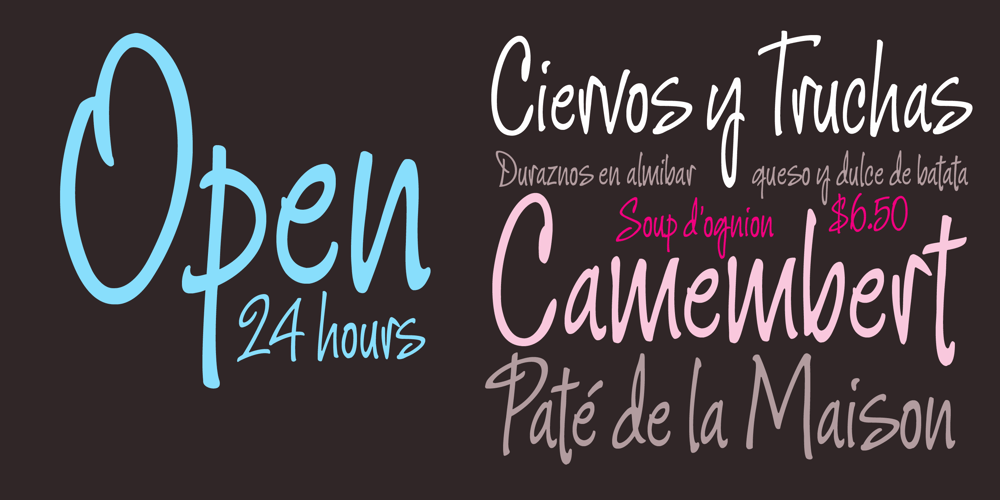
Argenta Font Family was designed by Alejandro Paul, Angel Koziupa and published by Sudtipos. Argenta contains 1 styles and family package options. Argenta is handwritten and fresh. The casual spirit of this face is evident, but complemented by very specific typographic details. A playful script with an immensely useful array of alternate characters. Released in OpenType format to expand possibilities of use with lots of alternates when used with OpenType-aware applications such as AdobeCS.